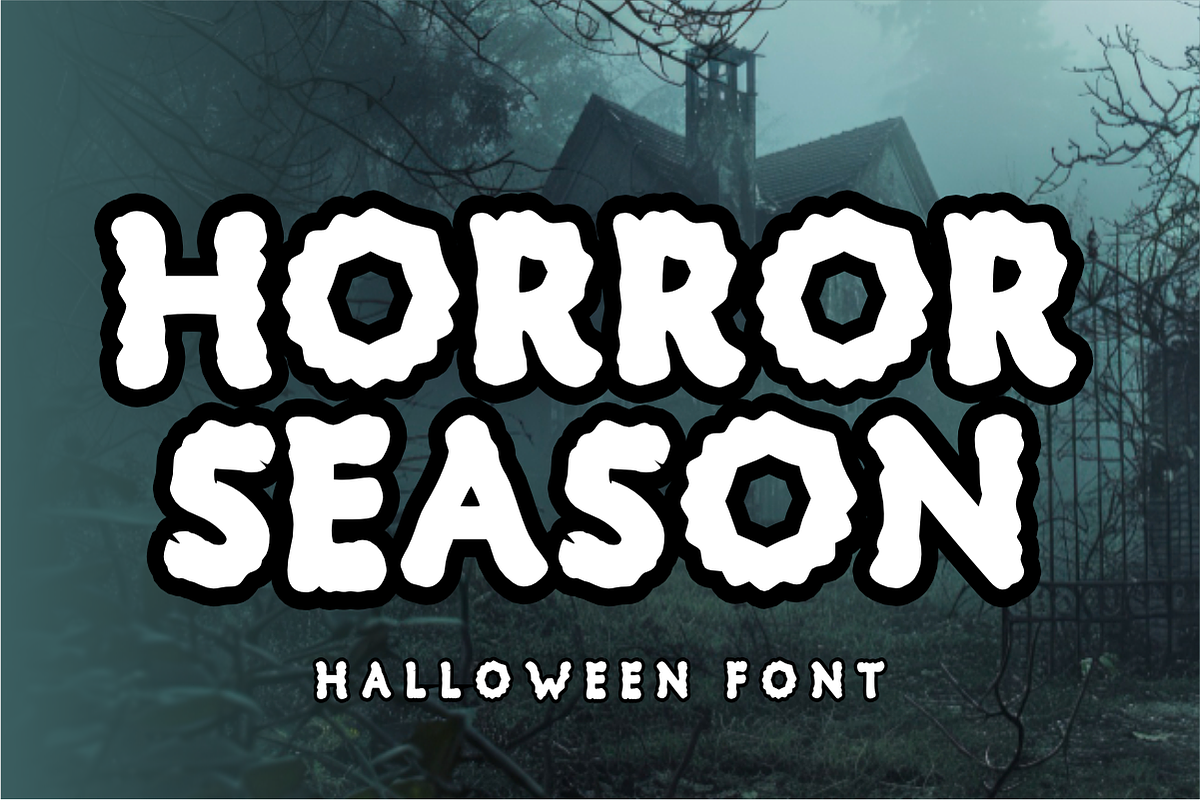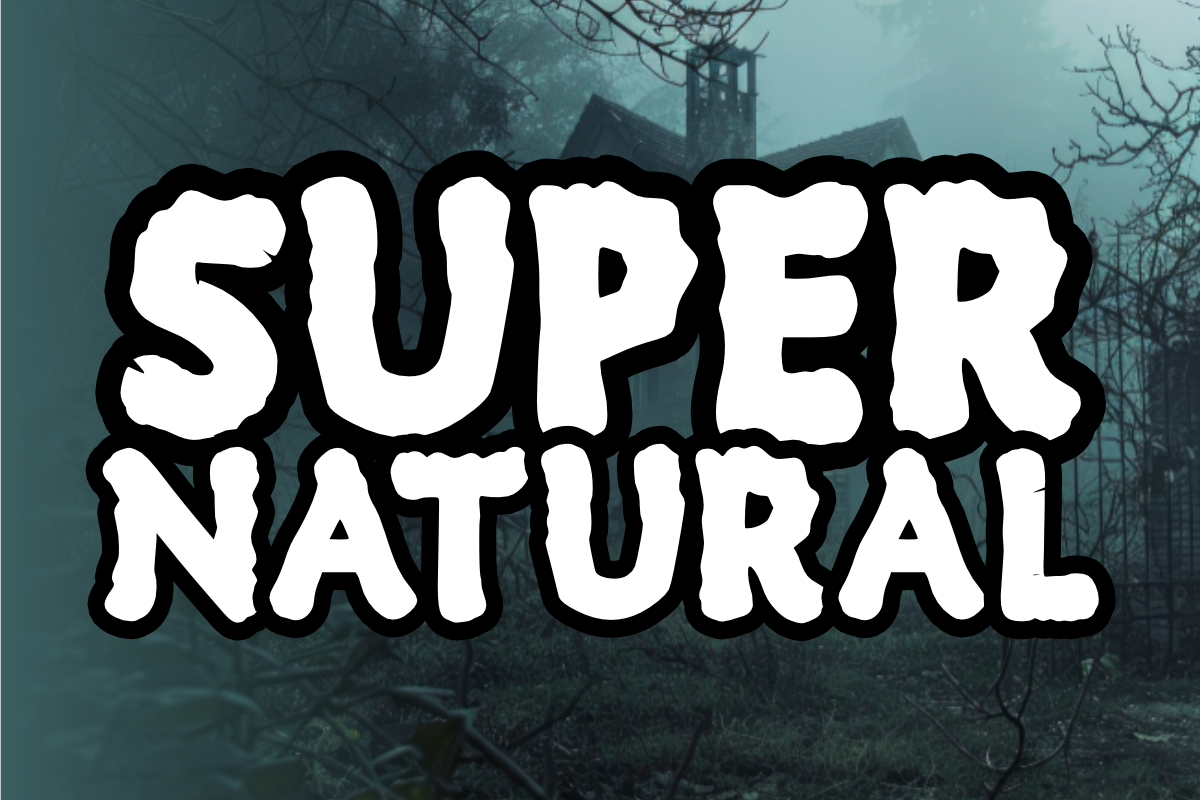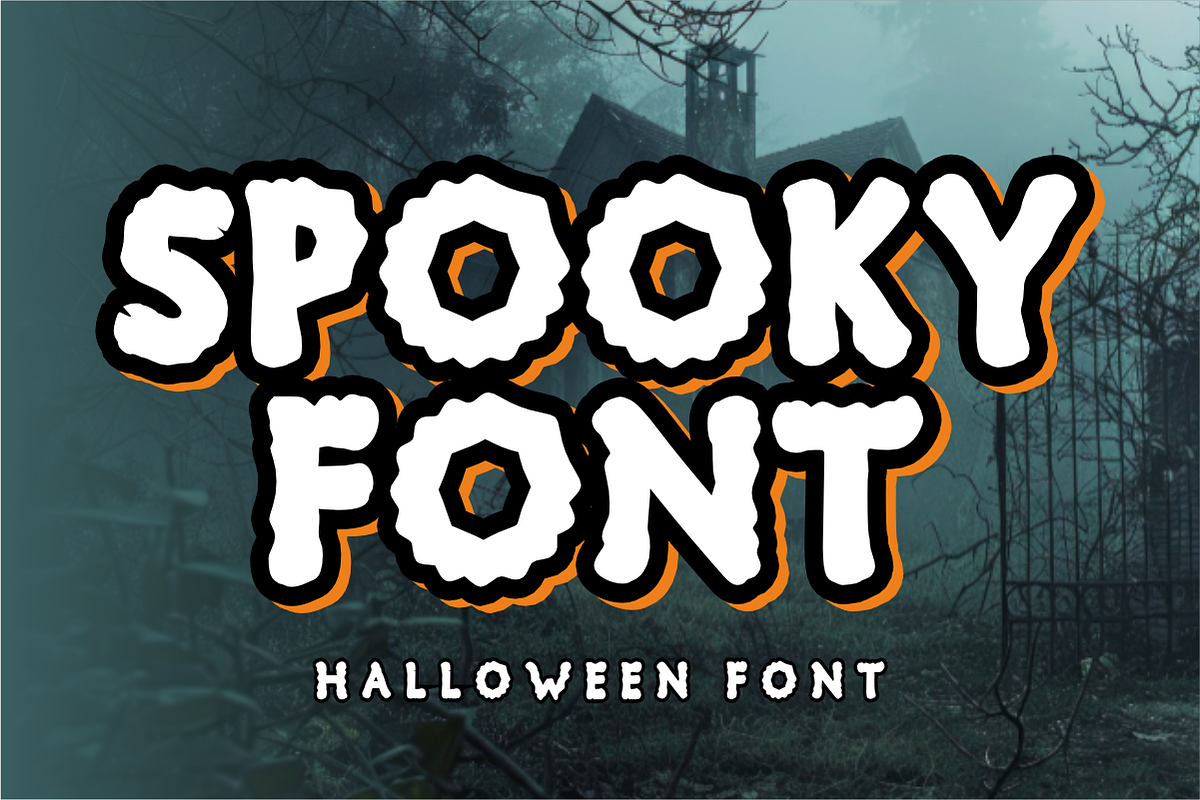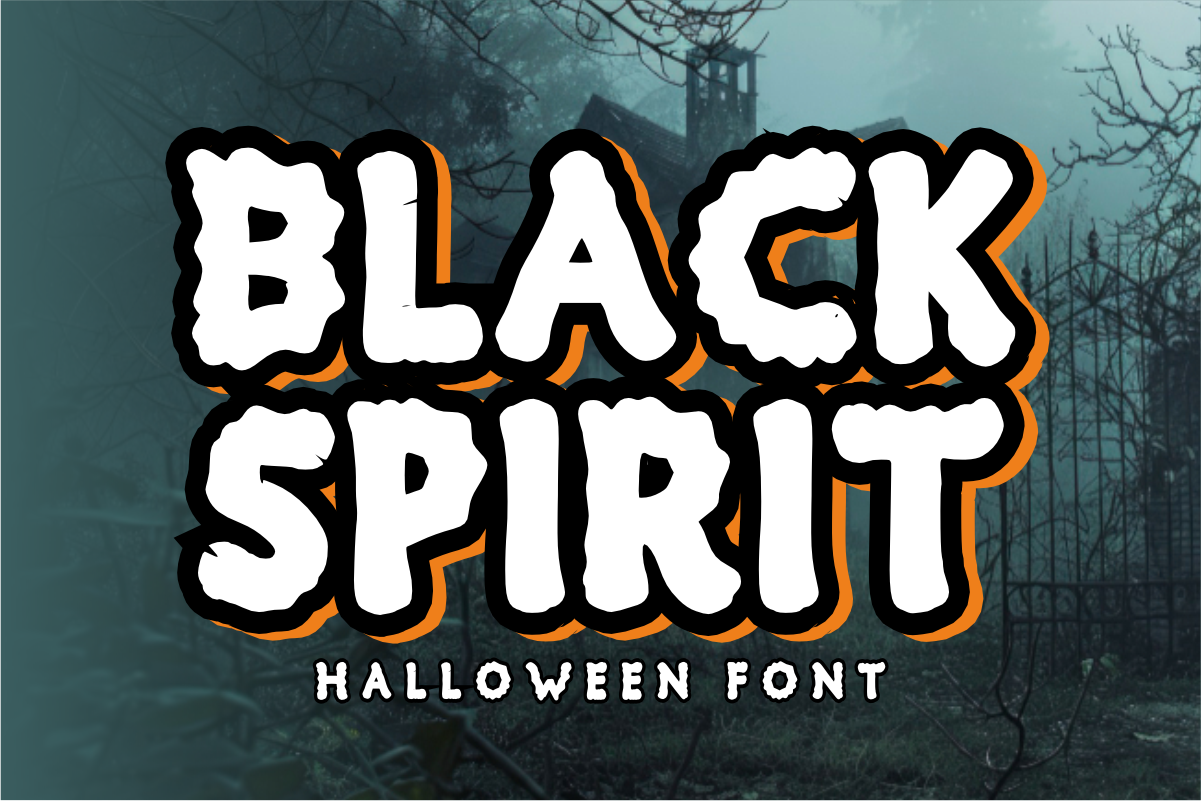
Black Spirit - Spooky Display Font
Black Spirit - Spooky Halloween Display Font
Unleash the thrill of the season with Black Spirit! This bold and haunting display font features jagged, hand-drawn edges that perfectly capture a playful yet eerie "Halloween Font" vibe. Designed for high impact, its chunky letterforms ensure your spooky headlines stand out with a unique, supernatural personality.
Whether you are creating chilling party invitations, horror-themed branding, or festive holiday merchandise, Black Spirit provides the perfect balance of fright and fun. It is fully optimized for professional legibility and works seamlessly across premium digital cutting tools and print layouts.
All-Caps Character Set (Bold, jagged uppercase letters with a spooky aesthetic)
Numbers & Basic Punctuation (Essential, simple symbols included)
Halloween Party Invitations, Spooky Posters, & Event Flyers 🎃
Horror-Themed Branding & Playful Logo Design 👻
Kids' Scary Storybooks, Movie Titles, & Digital Media 📚
Cricut, Silhouette, & DIY Halloween Craft Sublimation ✂️
Social Media Graphics, Stickers, & High-Impact Merch 📱